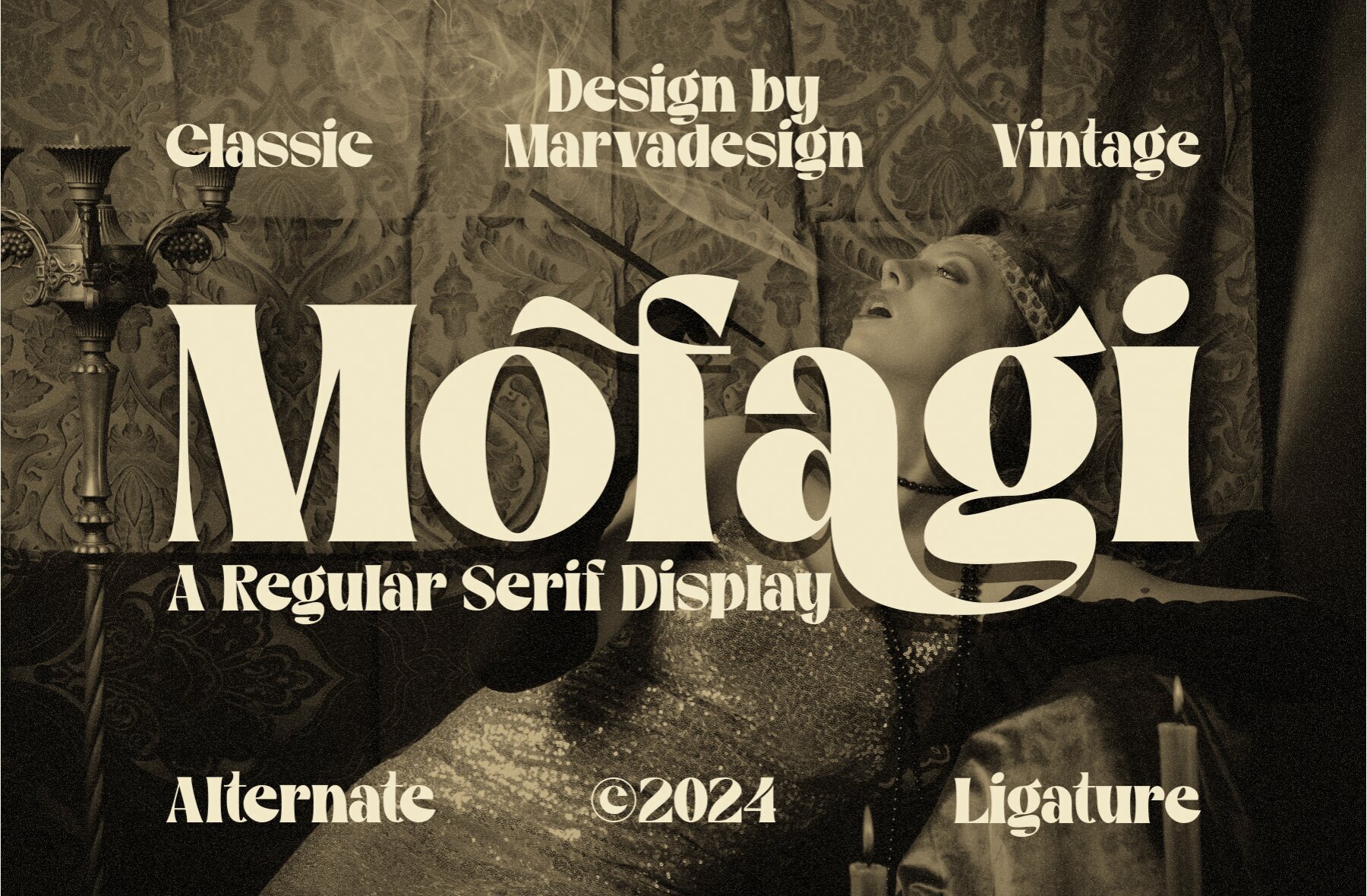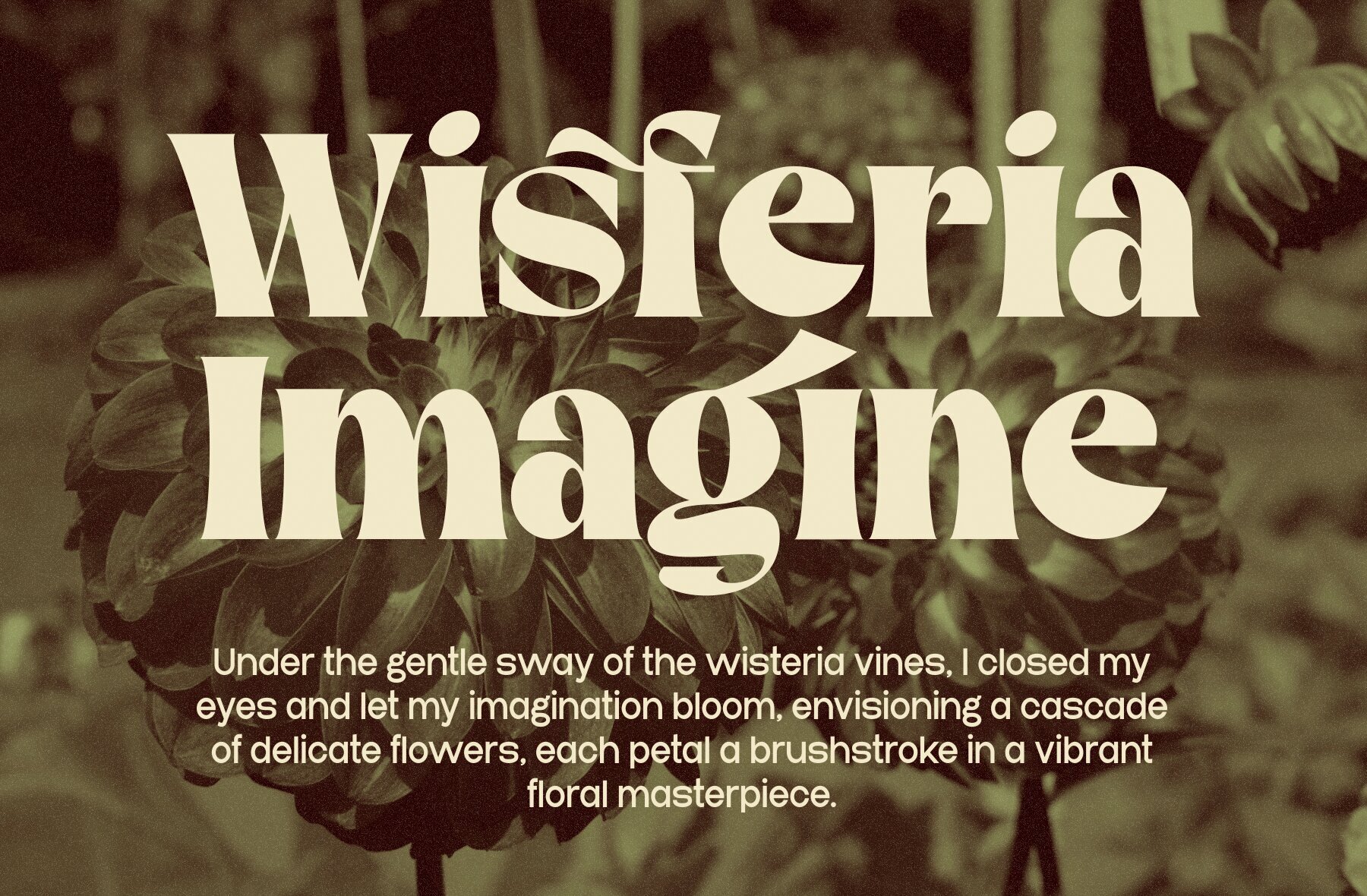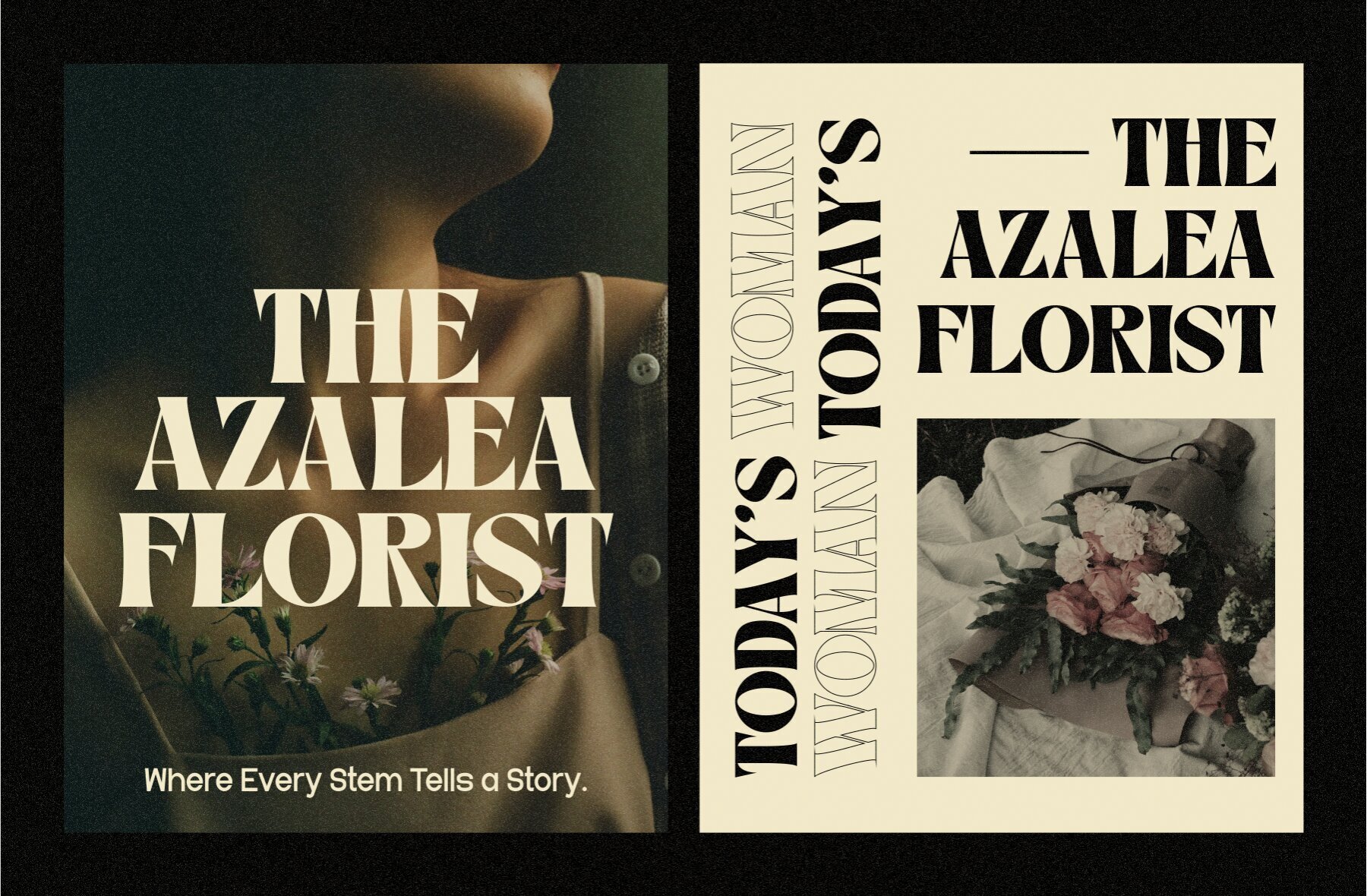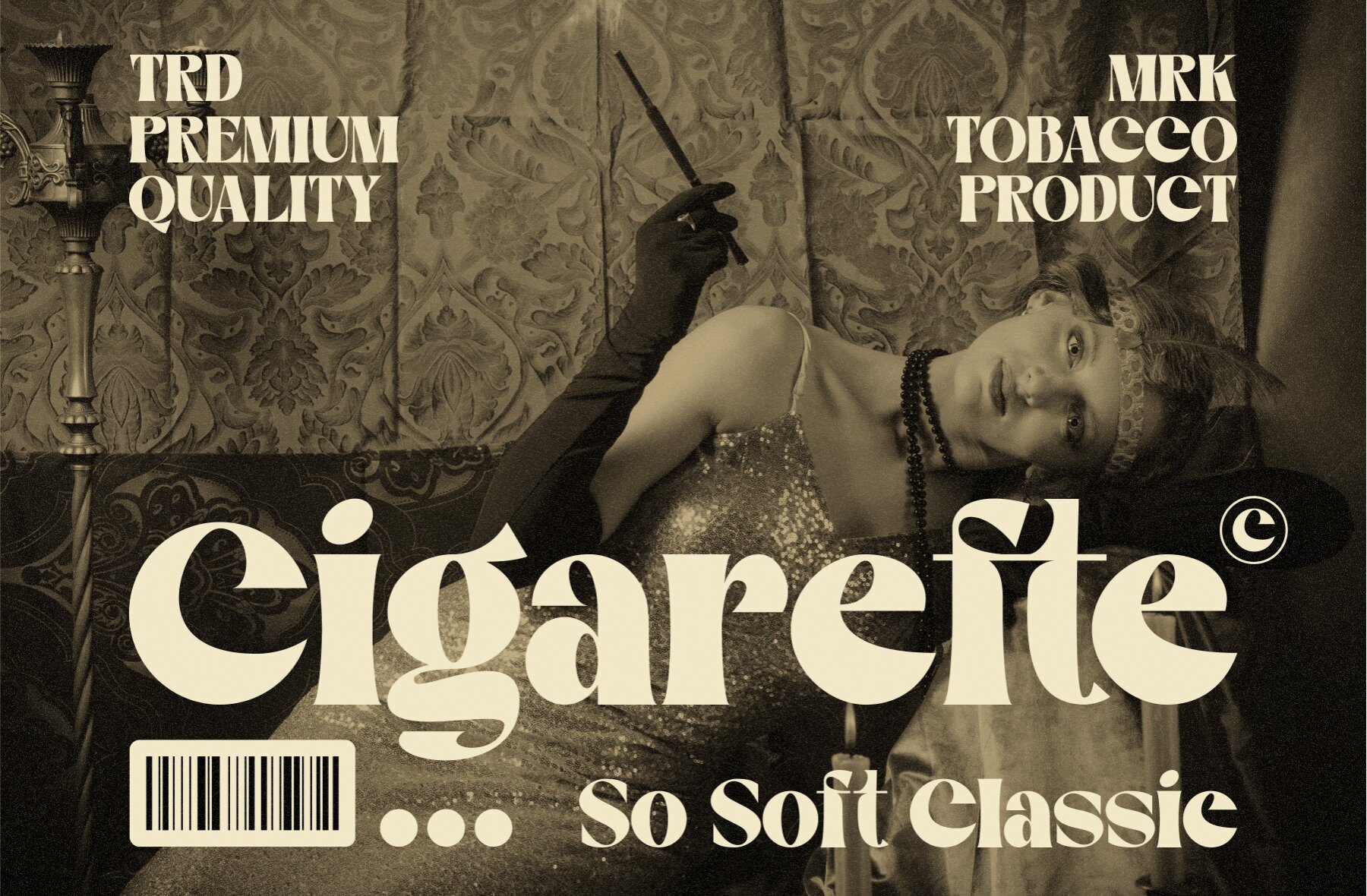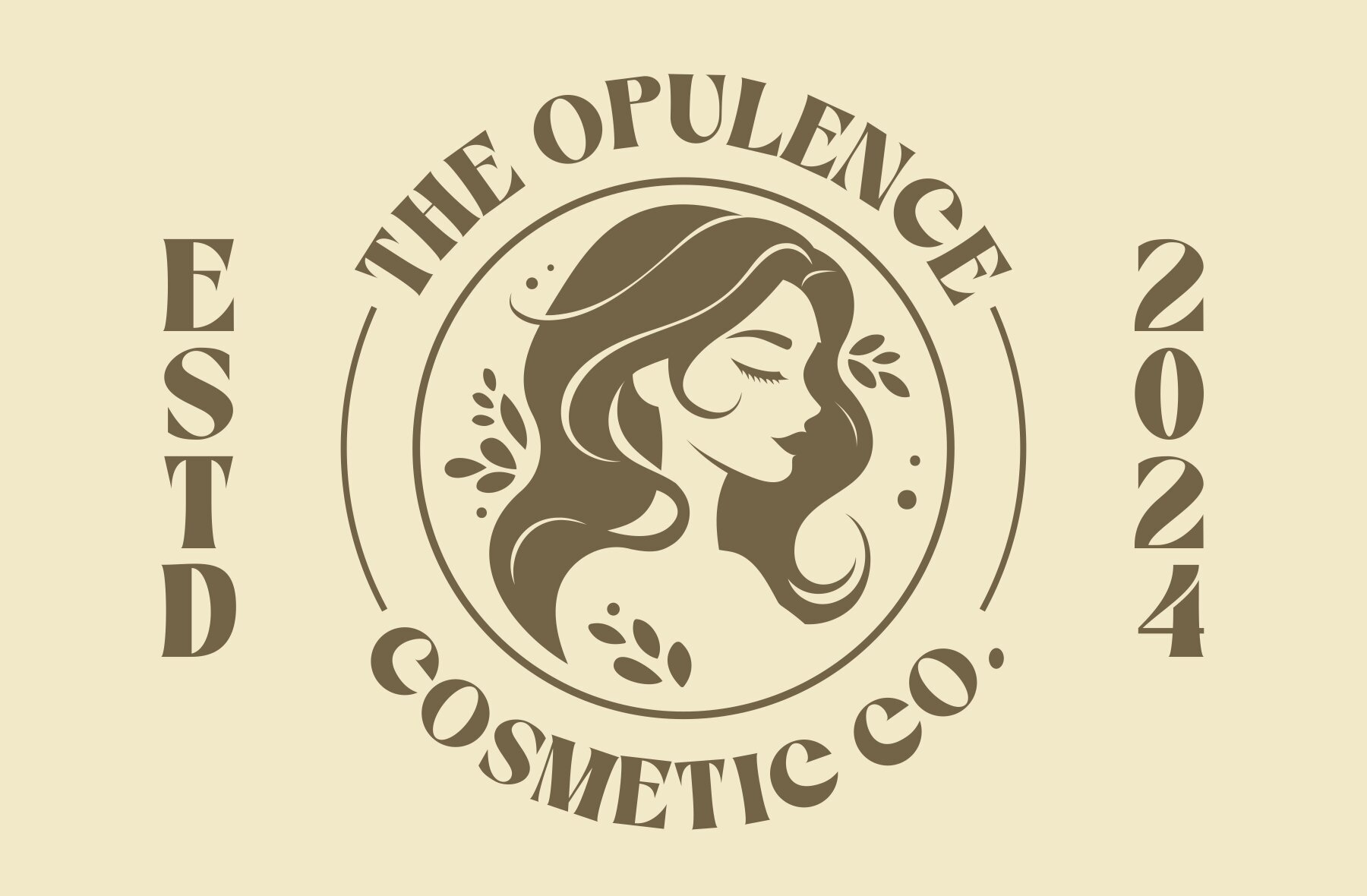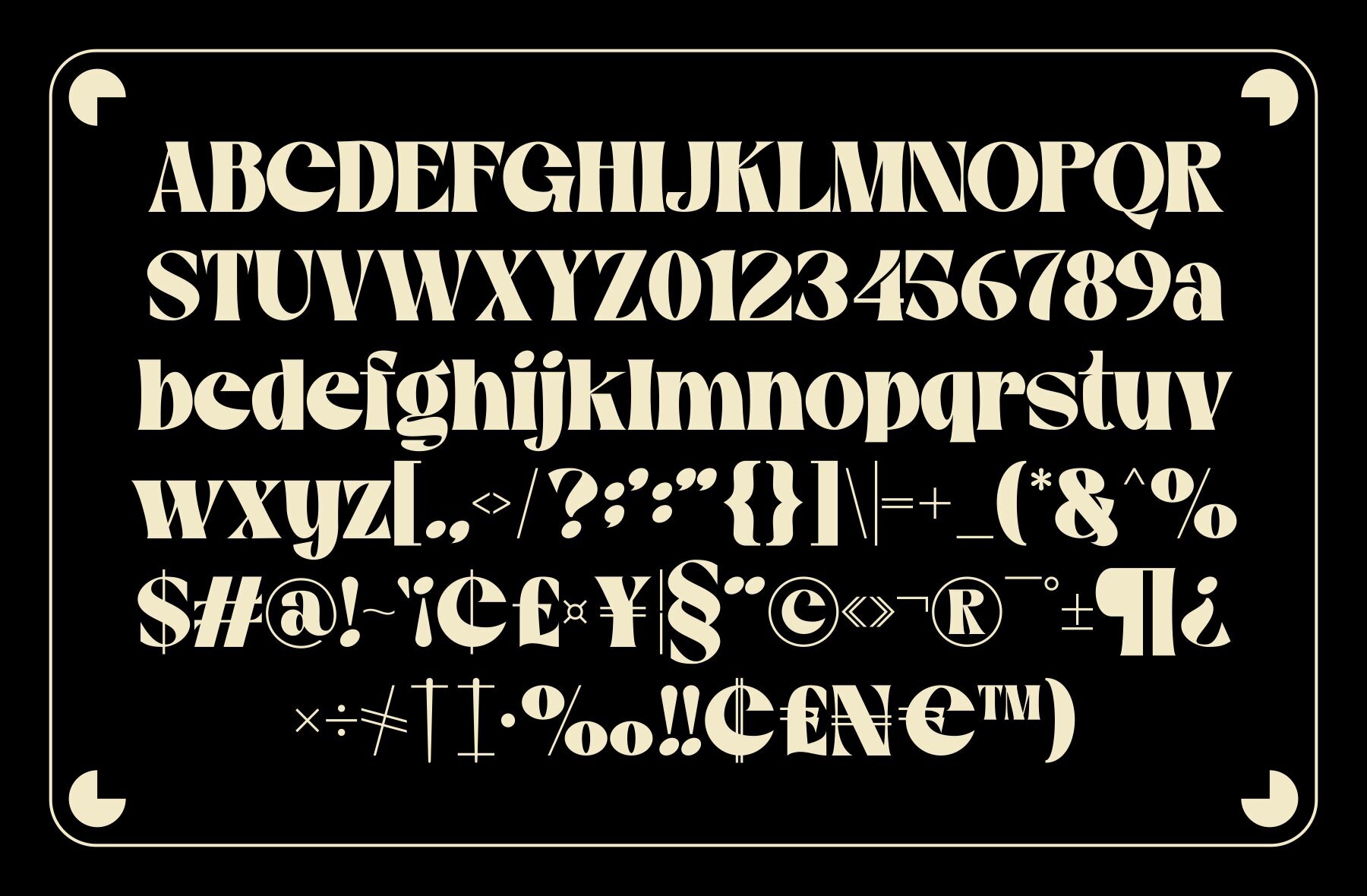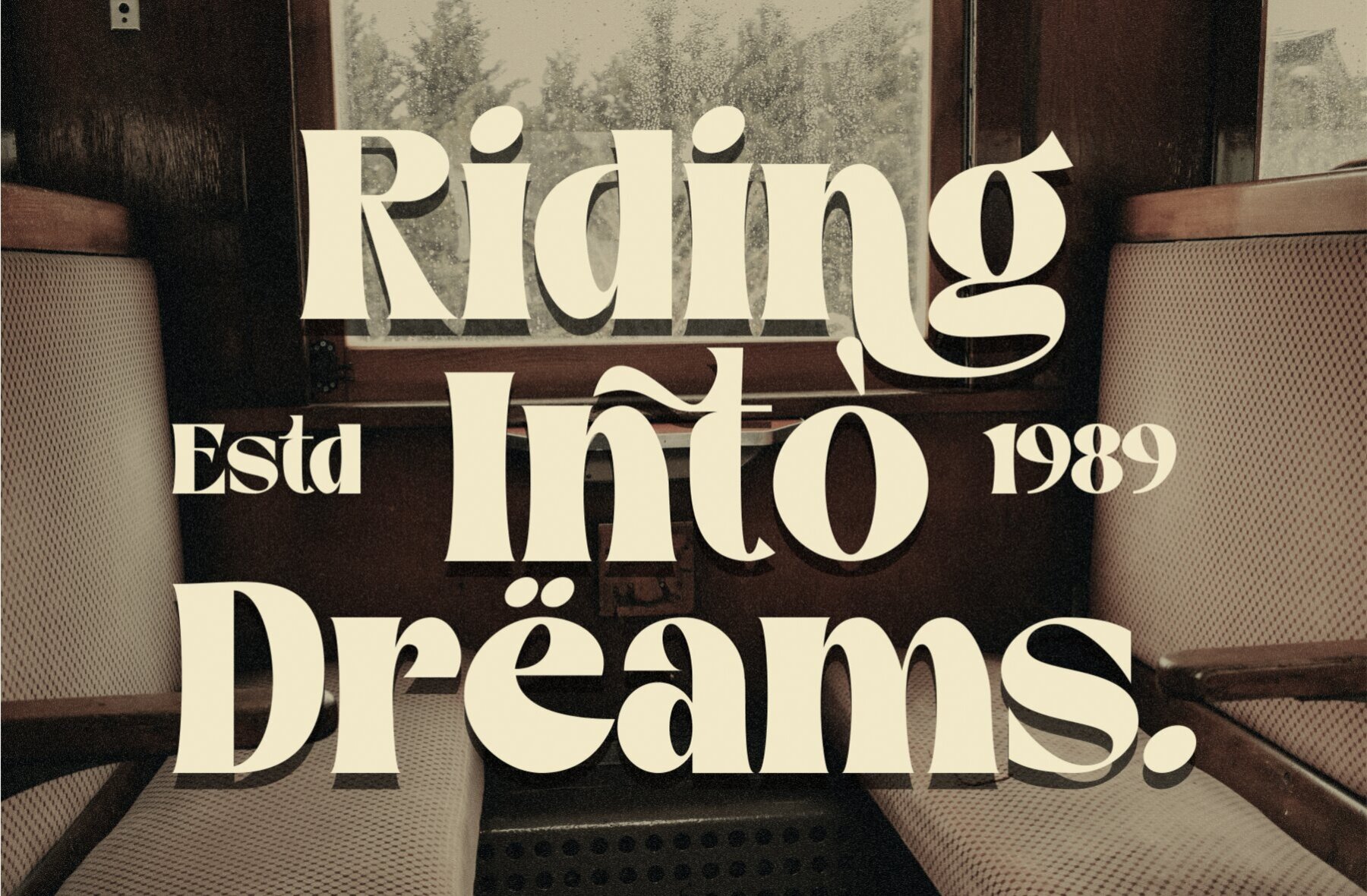
Mofagi Font
Mofagi Regular
Mofagi Font offers a timeless blend of classic serif design, ideal for enhancing branding projects such as logos, templates, and various other applications. This authentic display font stands out across diverse contexts, delivering elegance and versatility.Mofagi: Classic Serif Display Font